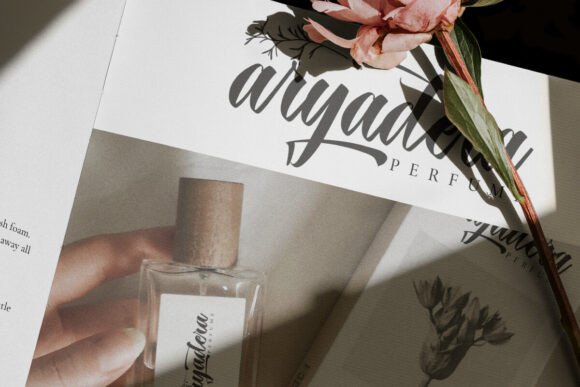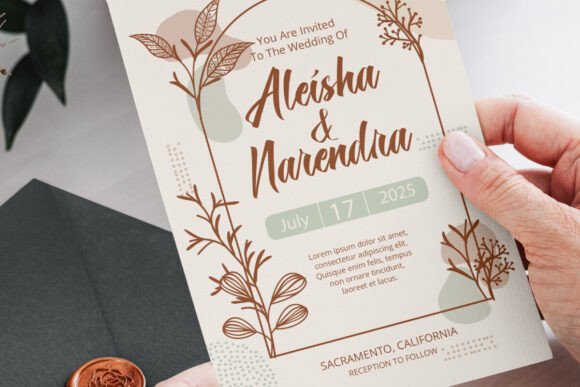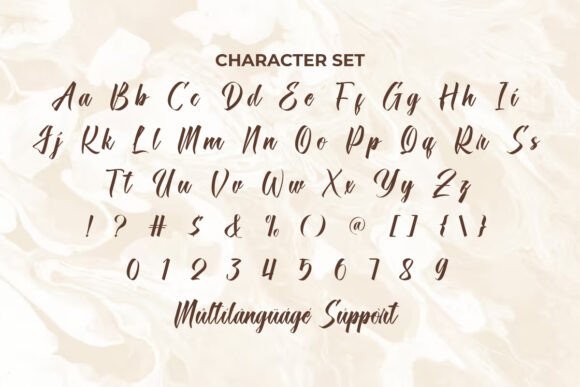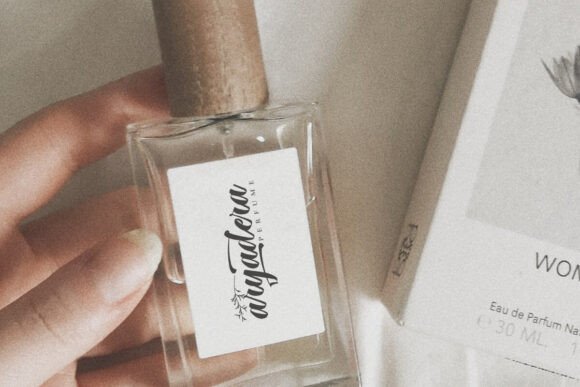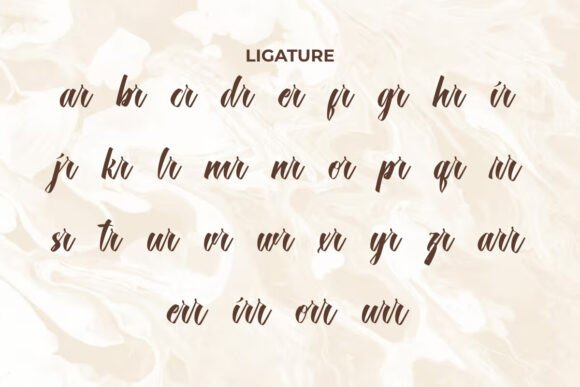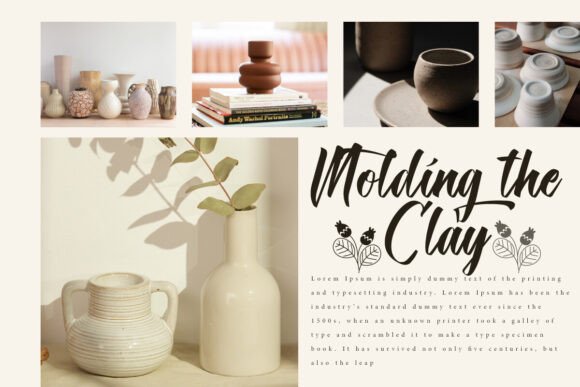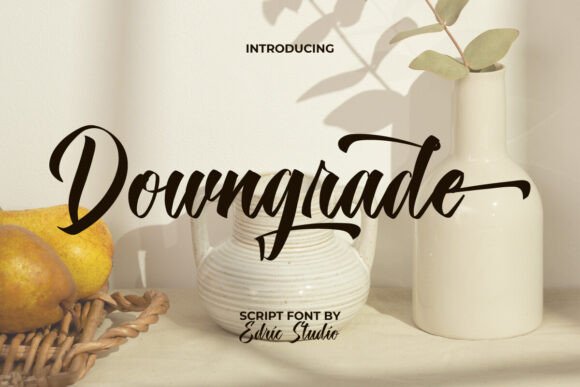
Downgrade Font: Elevate Your Designs with a Charming Brush Script Font
In the world of typography, fonts play a crucial role in conveying the tone and personality of a design. For designers and crafters looking to add a touch of elegance and sophistication to their projects, Downgrade Font is an excellent choice. This stylish brush script font is derived from a charming brush script type, making it a versatile and beautiful addition to any design.
What is Downgrade Font?
Downgrade Font is a brush script font that boasts a unique and captivating charm. Its elegant strokes and fluid lines make it perfect for a wide range of design applications, from billboards and brochures to digital platforms and craft projects. With its beautiful and distinctive appearance, Downgrade Font is sure to elevate your designs and leave a lasting impression.
Key Features of Downgrade Font
• Charming Brush Script Style: Downgrade Font features a beautiful brush script style that adds a touch of elegance and sophistication to any design.
• Versatile and Flexible: This font is suitable for a wide range of design applications, including billboards, blogs, brochures, covers, flyers, greeting cards, headlines, invitations, logo branding, packaging design, product labels, quotes, screen prints, signage, stickers, titles, websites, and more.
• Easy to Read and Understand: Despite its elegant and cursive nature, Downgrade Font remains easy to read and understand, making it perfect for both digital and print designs.
Design Applications for Downgrade Font
Downgrade Font is an incredibly versatile font that can be used in a variety of design applications. Here are some ideas to get you started:
• Billboards and Signage: Make a bold statement with Downgrade Font on billboards, posters, and signage.
• Digital Platforms: Use Downgrade Font on websites, social media graphics, and digital ads to add a touch of elegance and sophistication.
• Print Materials: Add a personal touch to brochures, flyers, greeting cards, and invitations with Downgrade Font.
• Craft Projects: Use Downgrade Font on craft projects such as stickers, labels, and DIY signs.
Tips for Using Downgrade Font
To get the most out of Downgrade Font, here are some tips to keep in mind:
• Pair with Simple Fonts: Pair Downgrade Font with simple and clean fonts to create a beautiful contrast.
• Experiment with Colors: Try out different colors and textures to add depth and interest to your design.
• Use on High-Quality Images: Use Downgrade Font on high-quality images to make it stand out.
Downgrade Font is a beautiful and versatile brush script font that can elevate any design. With its charming and elegant appearance, it’s perfect for designers and crafters looking to add a touch of sophistication to their projects. Whether you’re working on a billboard, brochure, or craft project, Downgrade Font is sure to make a lasting impression.